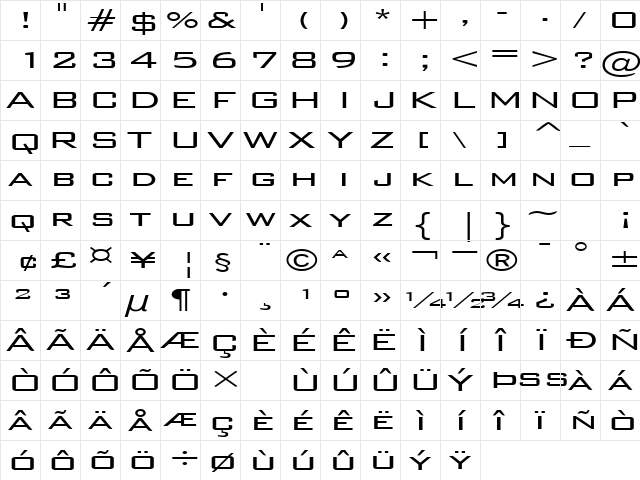
WallStreetExtended Regular
Design Context for WallStreetExtended Typeface
WallStreetExtended is a composed and adaptable typeface that performs quietly and consistently across a wide range of design contexts.